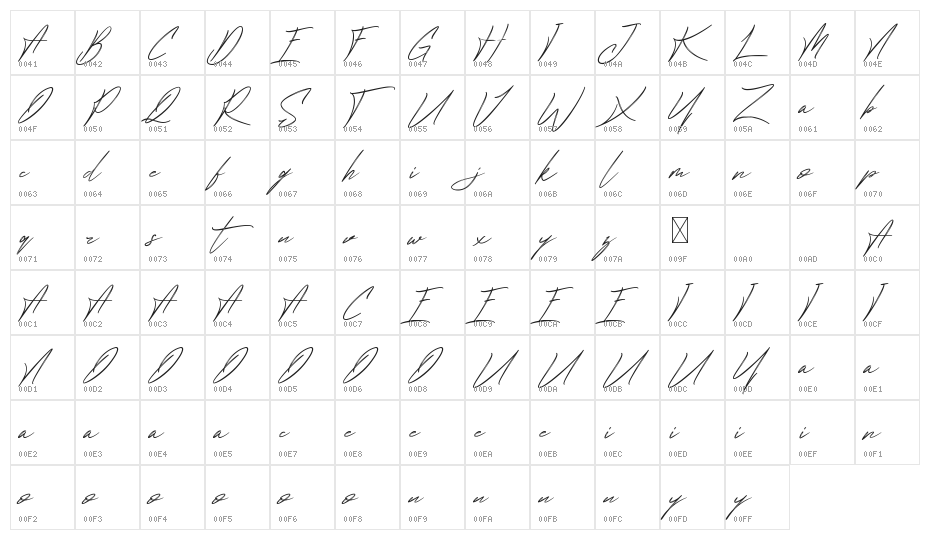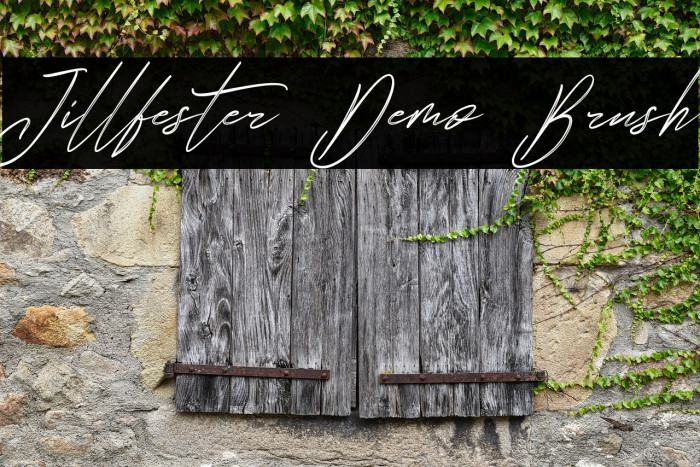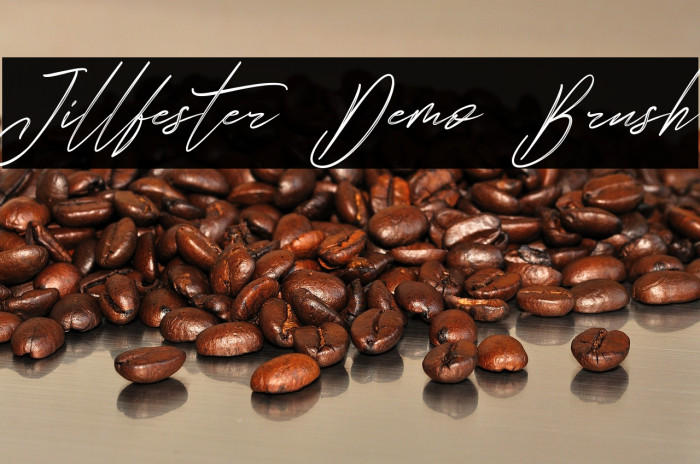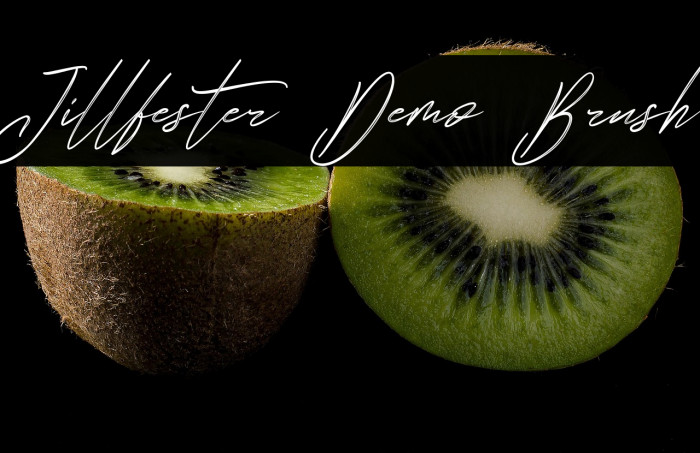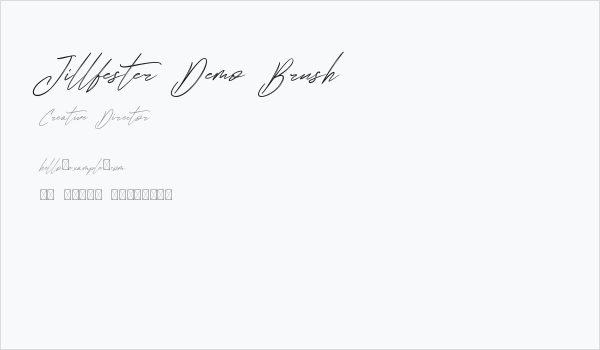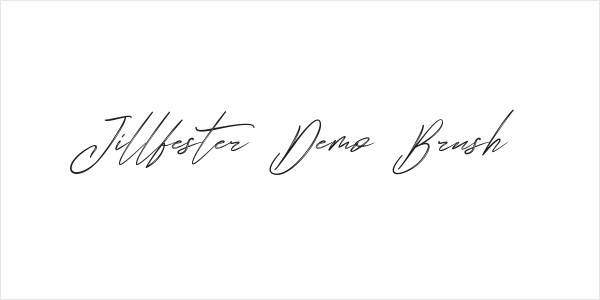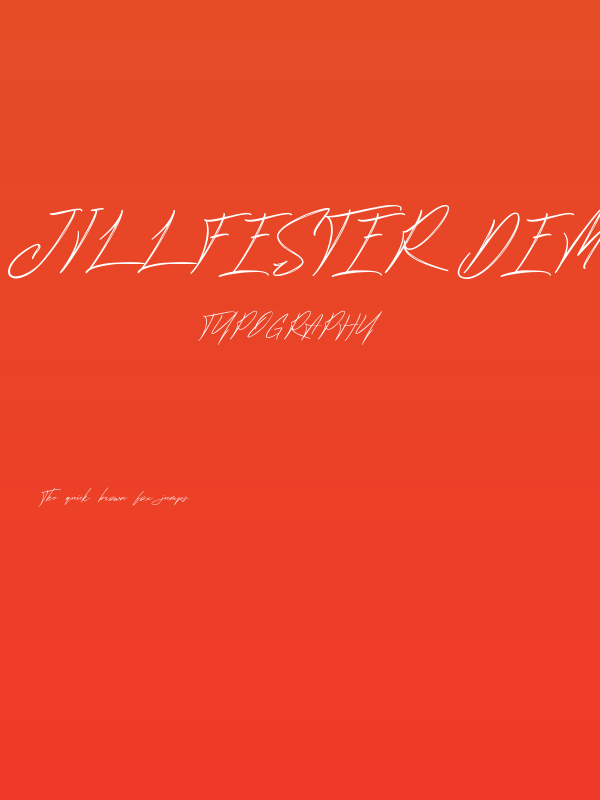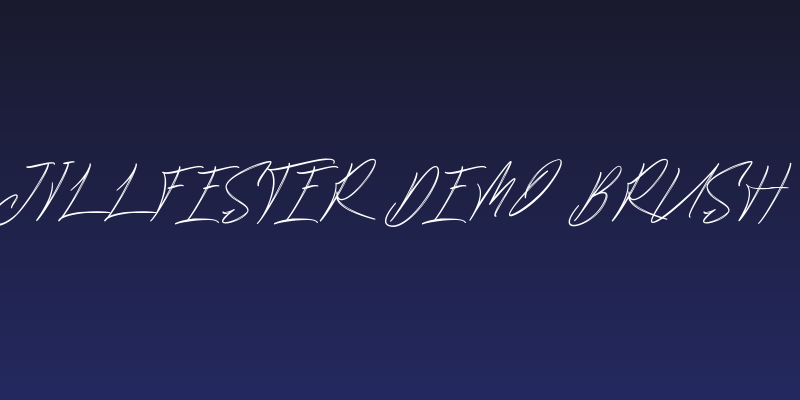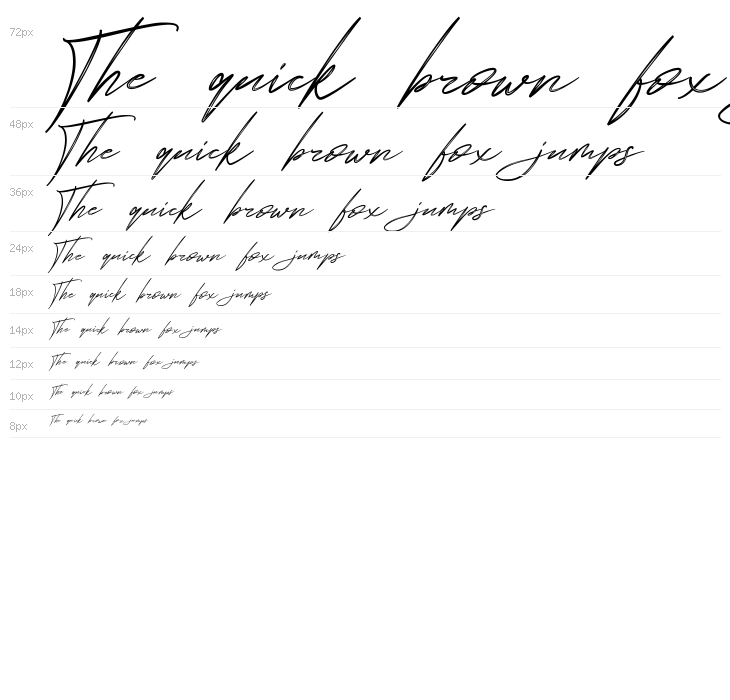
Jillfester Demo Brush Font
Jillfester Demo Brush Description
This font features an elegant and fluid brush script style, characterized by its sweeping, cursive strokes and dynamic movement. The uppercase letters are tall and slender, with a slight slant that adds a sense of motion and grace. The lowercase letters are more compact, maintaining the same fluidity and connectedness, which gives the text a handwritten appearance. The strokes vary in thickness, providing a natural and artistic look. This font is ideal for projects that require a personal touch or an artistic flair, such as invitations, greeting cards, or branding materials.
| Proposed Projects | Ideal for invitations, greeting cards, branding, and artistic projects. |